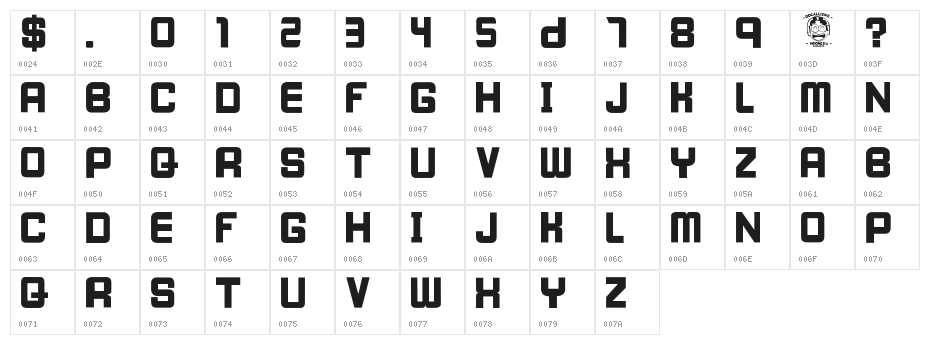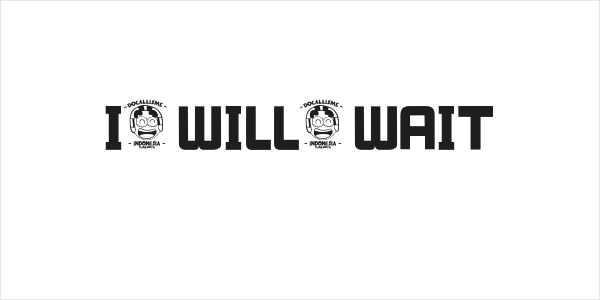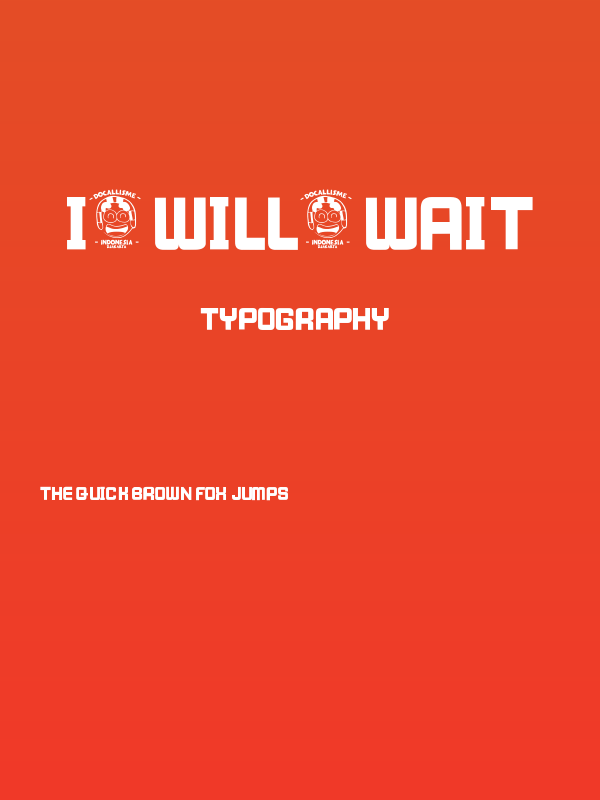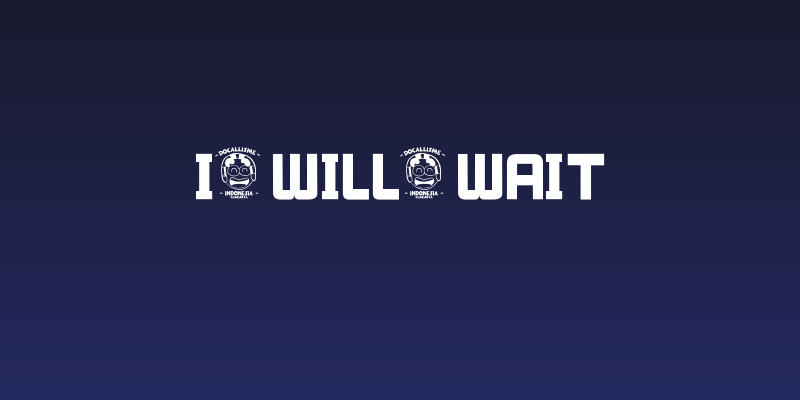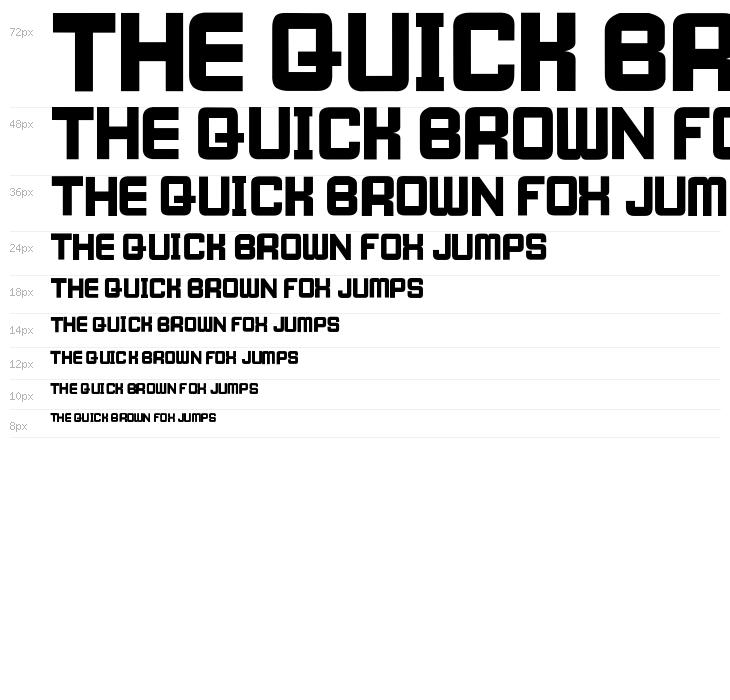
I-WILL-WAIT Font
I-WILL-WAIT Description
Rounded, playful sans-serif font with uniform stroke width, geometric letterforms, and friendly appearance. Characters are evenly spaced and highly legible, with a modern and approachable style.
| Overall Style | Modern, Playful |
| Use Case | Logos, Headlines, Posters, Branding |
| Proposed Projects | Children's books, tech branding, educational materials, playful packaging, social media graphics. |